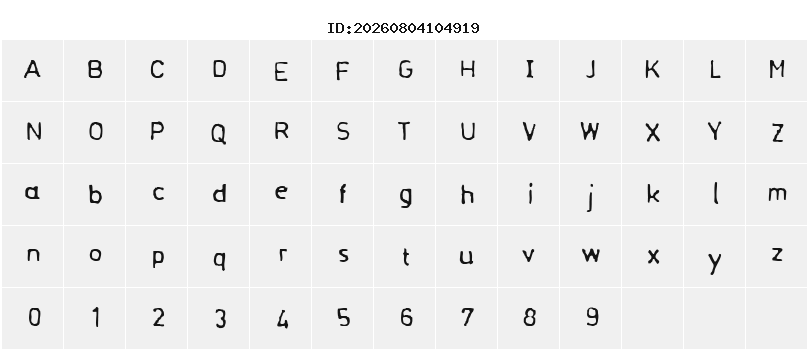
Normograf Preview
• Font Name: Normograf
• Full Font Name: Normograf-Regular
About Normograf.ttf
Normograf.ttf is a modern, elegant sans-serif font designed for ultimate readability and visual harmony. Perfect for branding, headlines, web design, and print materials.